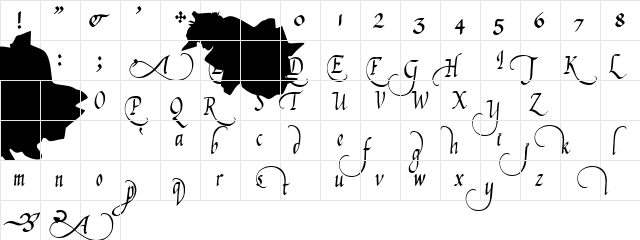
Abdiel Regular
Design Context for Abdiel Typeface
Abdiel is a composed and adaptable typeface that performs quietly and consistently across a wide range of design contexts.